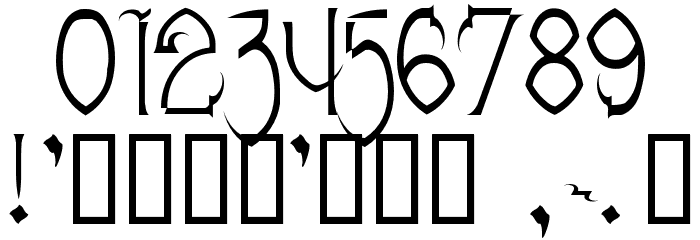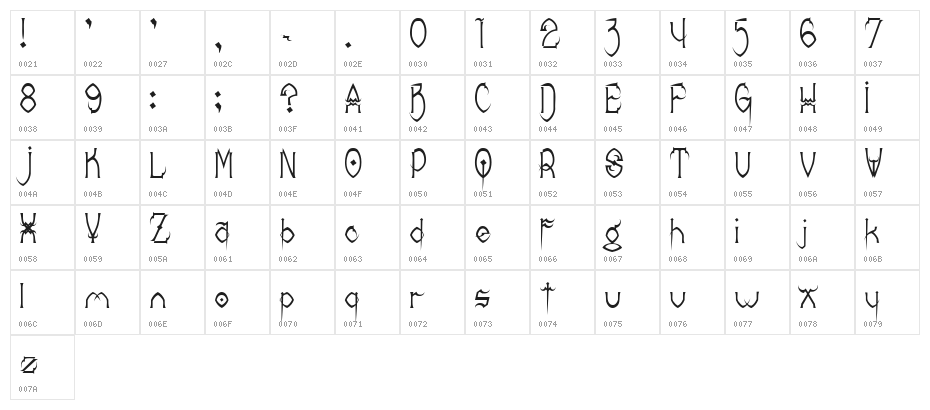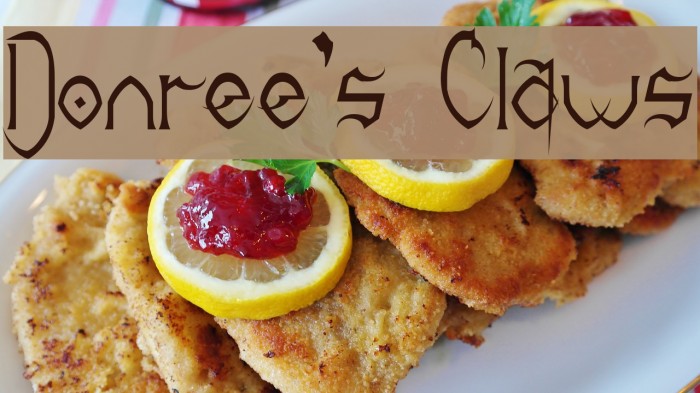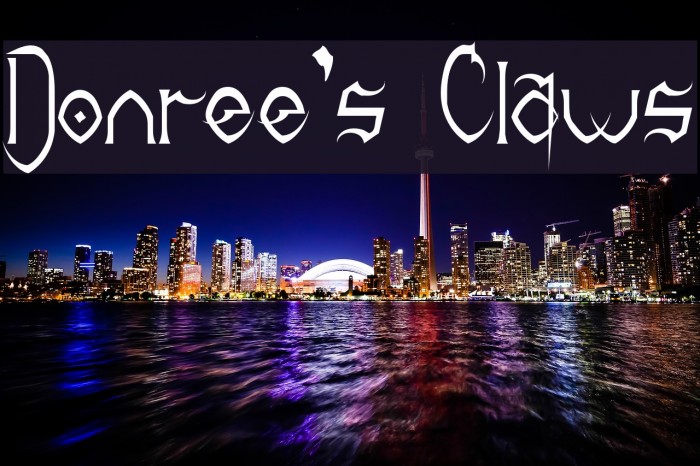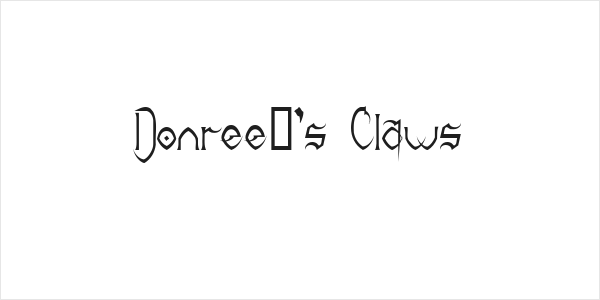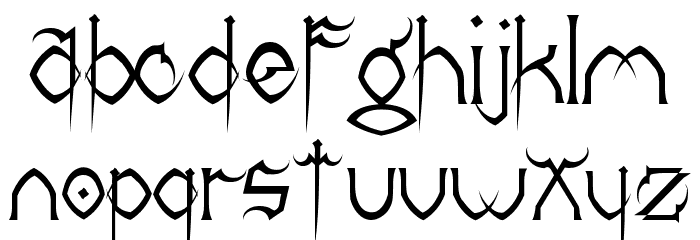
Donree's Claws Font
Donree's Claws Description
This font features a unique and edgy design, characterized by sharp, claw-like extensions and intricate detailing. The uppercase letters are bold and striking, with elements that resemble talons or spikes, giving them a fierce appearance. The lowercase letters maintain this theme, with elongated strokes and pointed serifs that add to the overall dramatic effect. Numbers and special characters follow the same aesthetic, ensuring consistency throughout the typeface. The font's style is reminiscent of gothic or fantasy themes, making it ideal for projects that require a bold and adventurous look.
Proposed ProjectsIdeal for fantasy book covers, video game titles, movie posters, and themed event invitations.